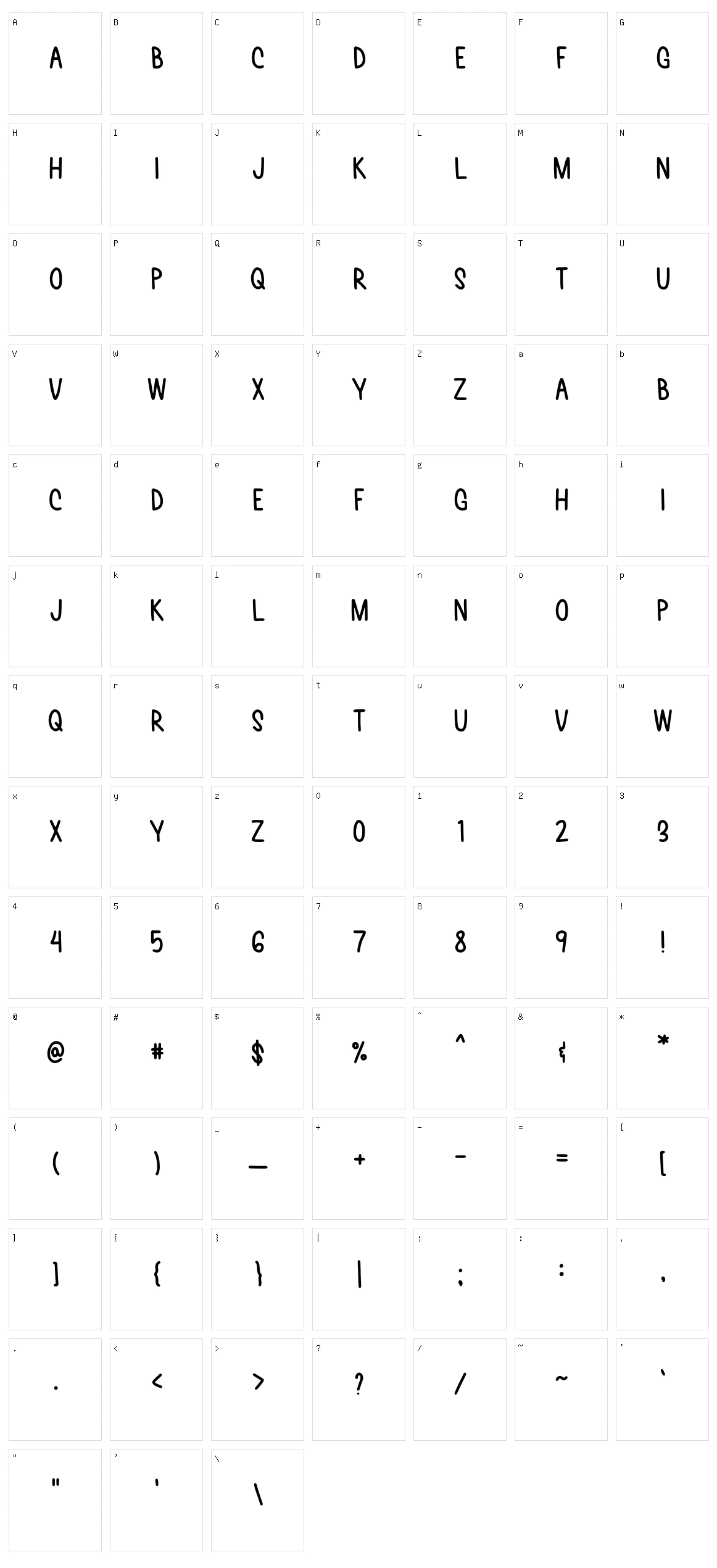
The free font Pumpkin Cheesecake is carefully designed by Dominique Demetz, showcasing a thoughtful balance of creativity and usability and falls under the Script font style. When you download the ZIP file, it contains only 57.26 KB of font files, making it lightweight and quick to download. Please review the license details below to understand permitted usage and distribution rights. If license information is not available, we recommend using this font for personal projects only or contacting the author directly for commercial usage permissions.